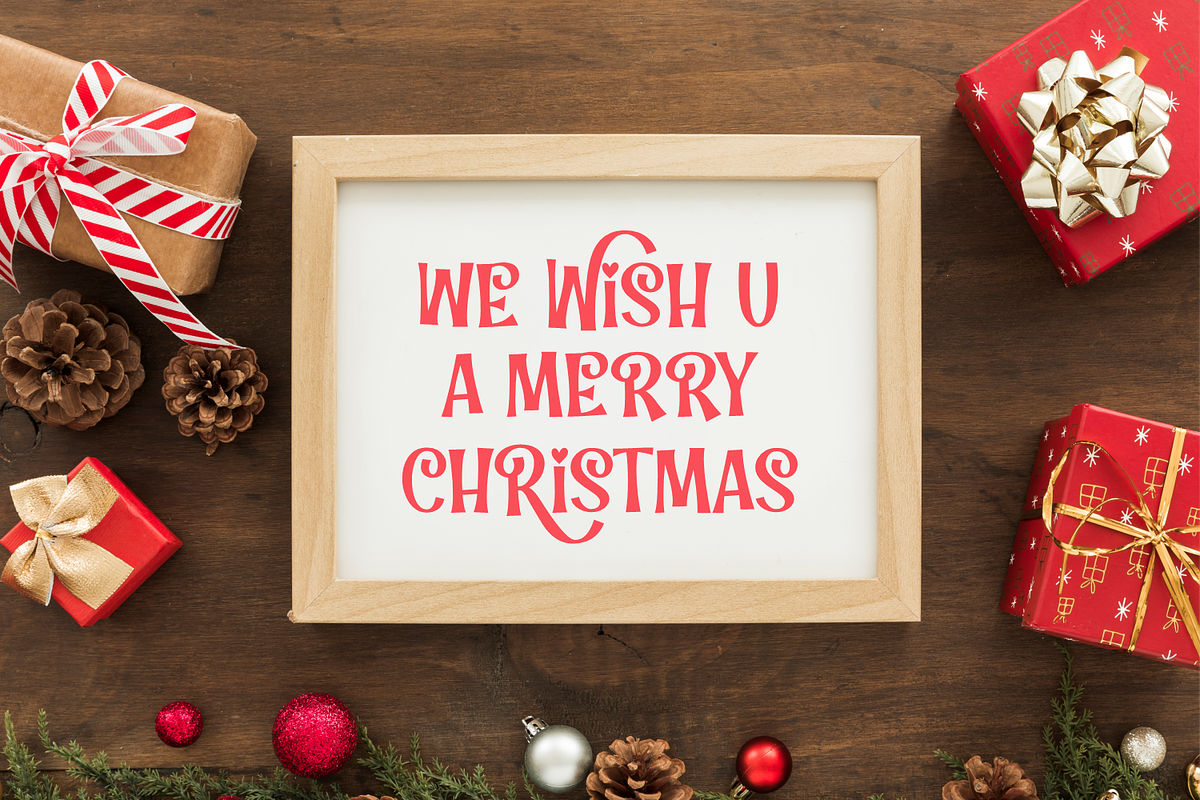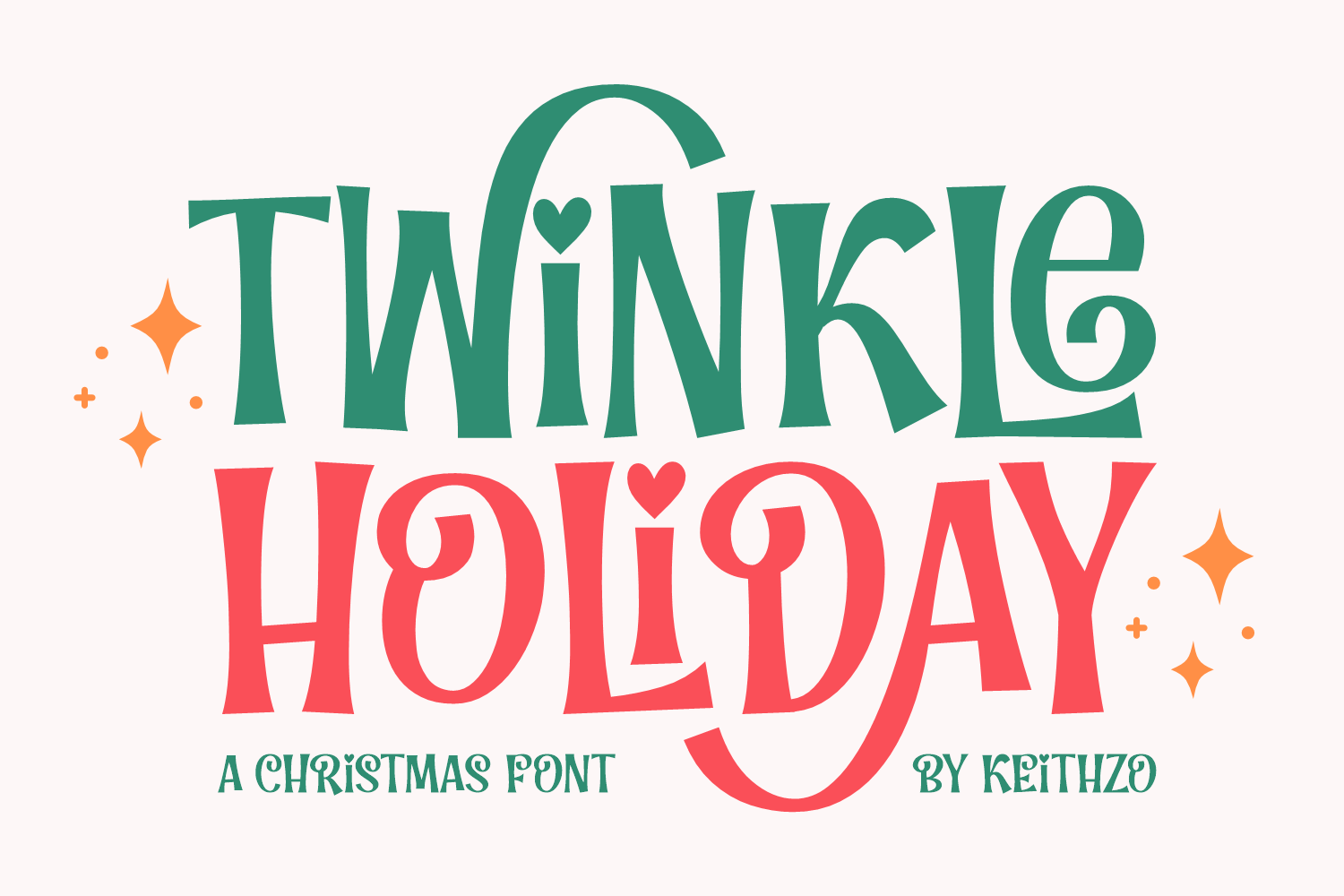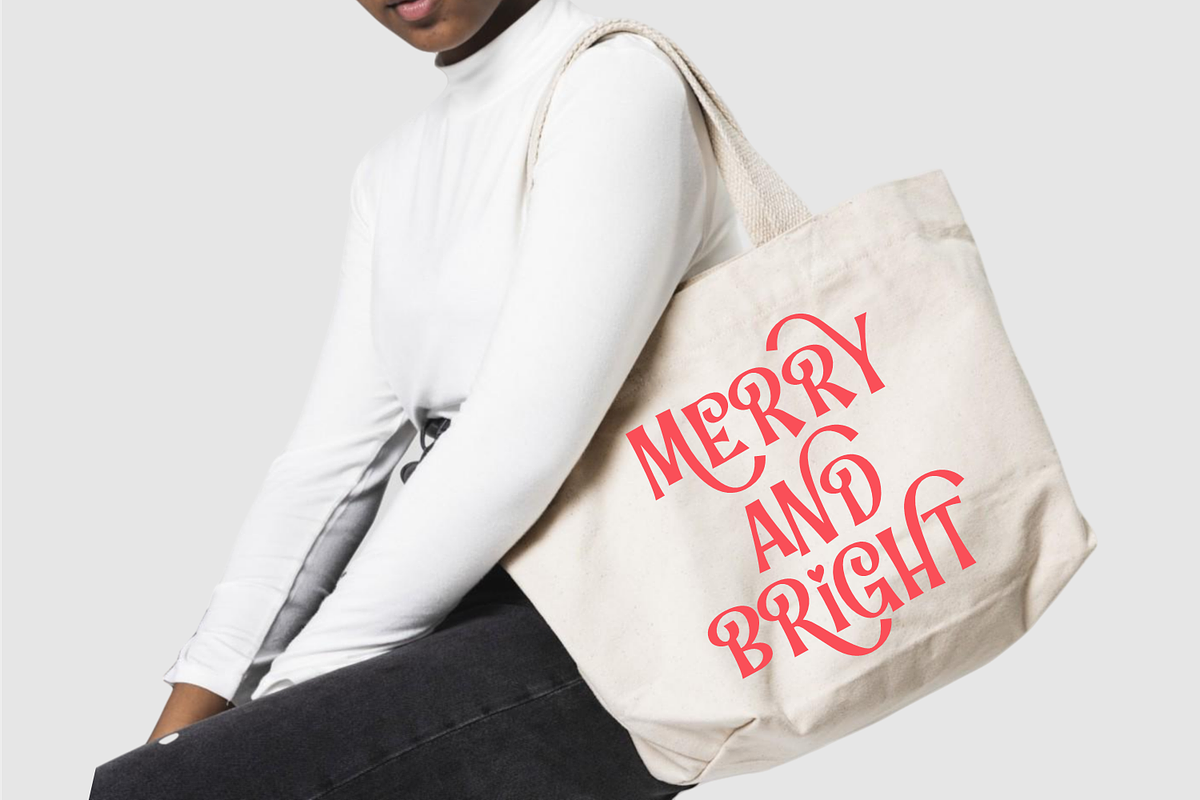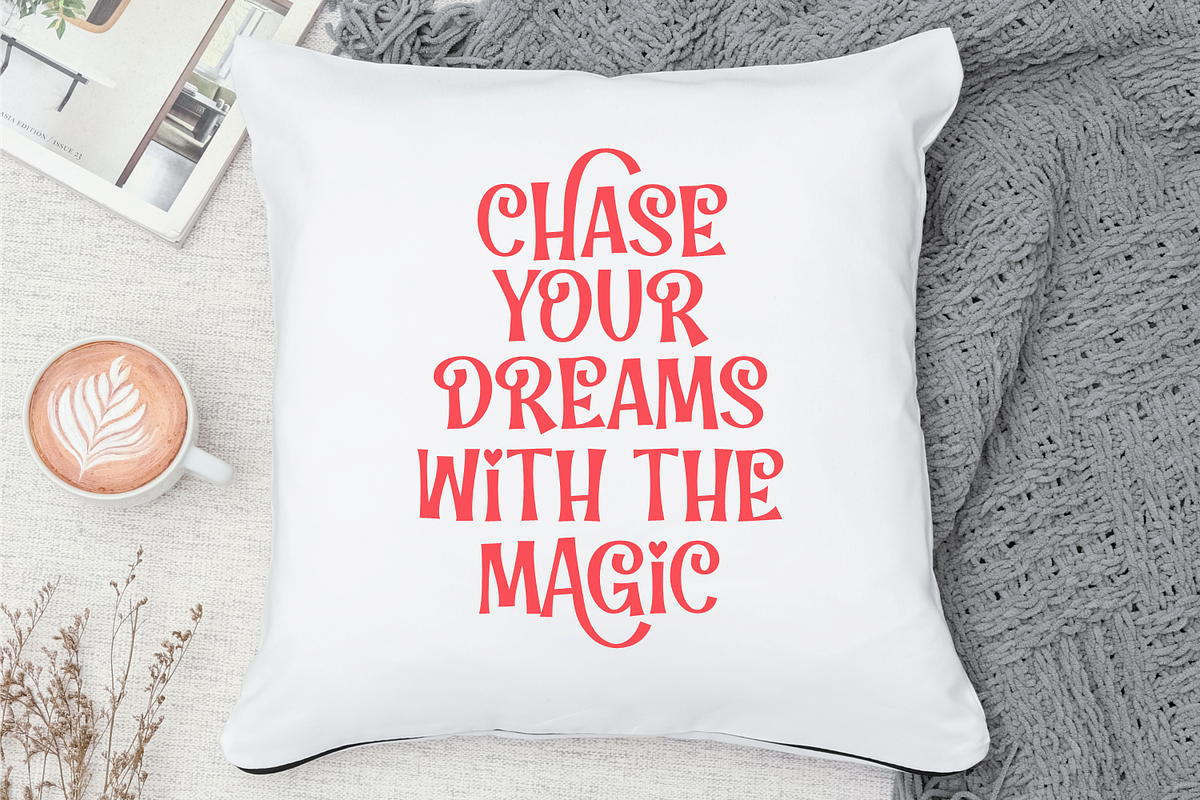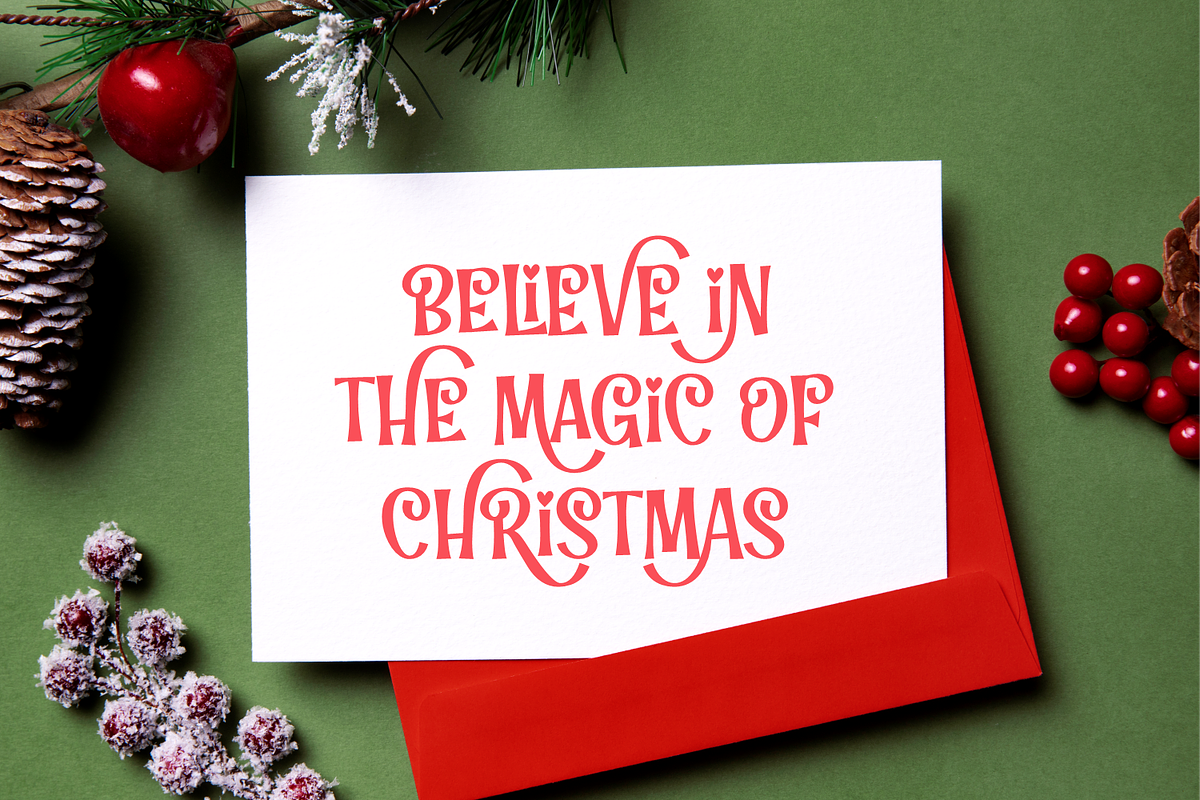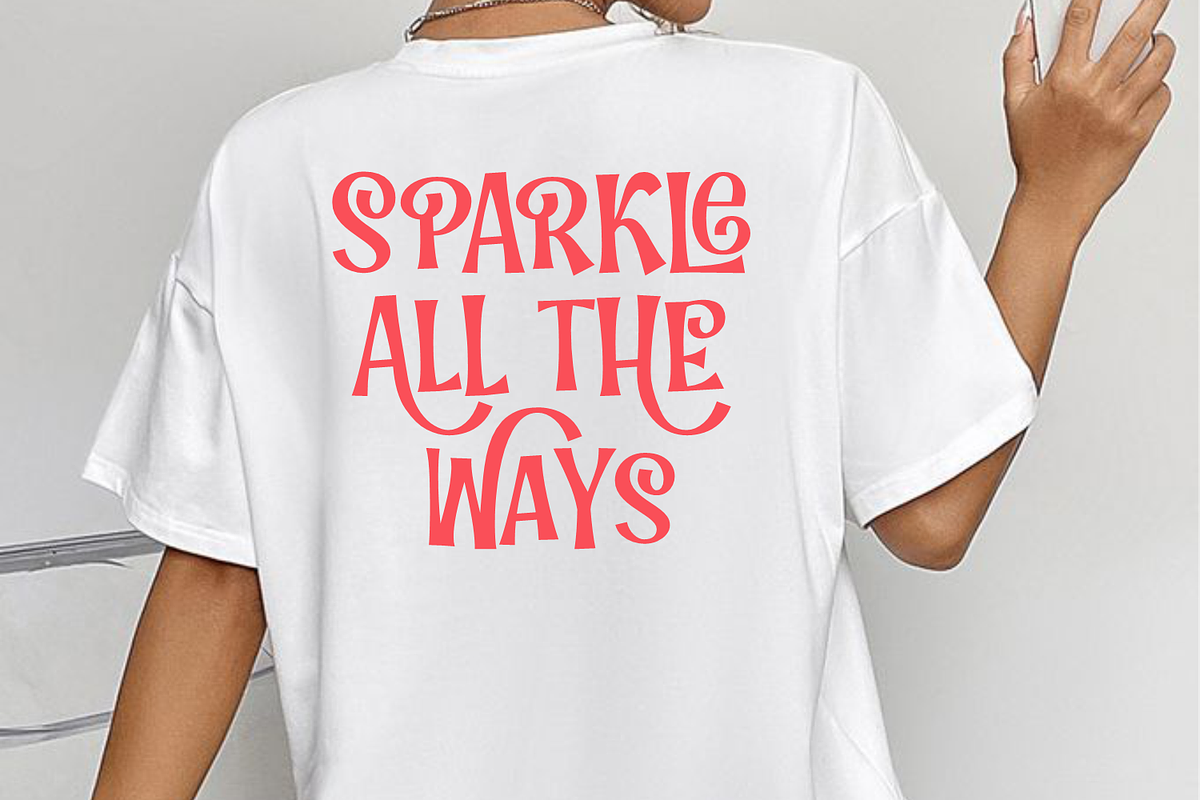
Twinkle Holiday - Christmas Font
Unveiling the festive spirit of the holiday season, let Twinkle Holiday enchant you with its exceptional charm. A handcrafted font, it radiates an unparalleled persona, making it truly distinctive. Its magic truly comes alive when you seamlessly blend its upper and lower case letters together. To enhance the joy, Twinkle Holiday also offers alternate mix options, making it possible to lend an additional splash of swashes to your creations. This font is a perfect match for an extensive range of artistic pursuits. Whether it's tailor-made quotes that speak volumes, irresistible invitation cards, bespoke t-shirts, cuddly pillows or distinctive mugs, Twinkle Holiday leaves its dazzling imprint. Soak in the festive ambience intertwined in the beautiful construct of Twinkle Holiday, a dreamy font destined to add sparkle to all your holiday crafts and festivities.